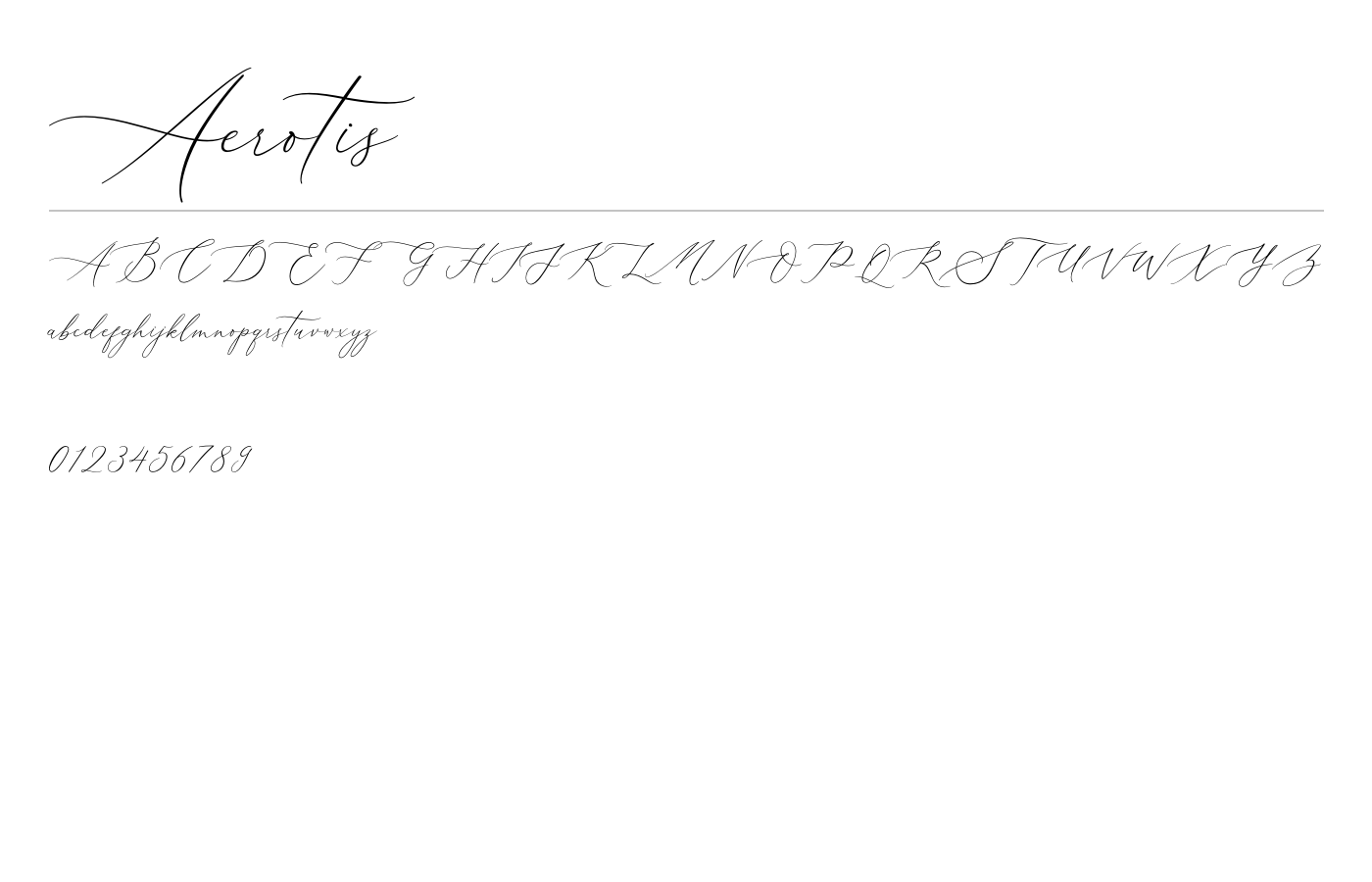
Aerotis is an elegant, delicate script font characterized by its thin, flowing strokes and graceful, handwritten style. Its refined, airy letterforms with high contrast and fine curves evoke sophistication, making it ideal for luxury branding, wedding invitations, and elegant editorial projects where a graceful, personal touch is desired.
Aerotis Font